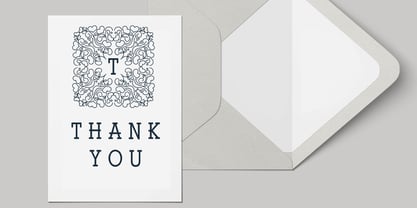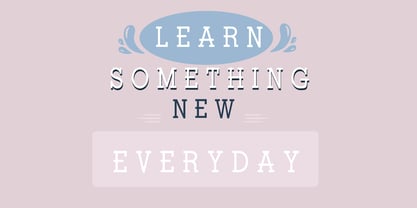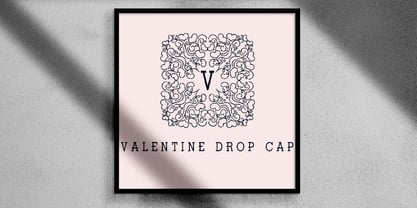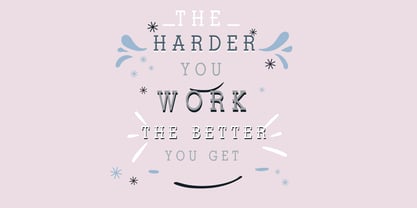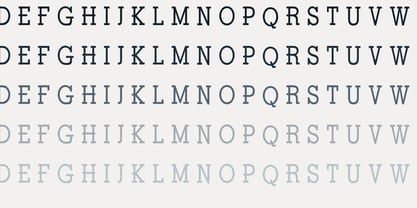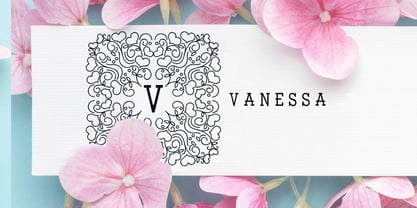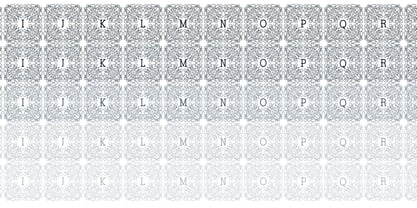
ZP Valentine Drop Cap
by Illustration Ink
The ZP Valentine Drop Cap Font Family was designed by Illustration Ink and published by Illustration Ink. ZP Valentine Drop Cap contains 6 styles and family package options. More about this family
This hand-crafted font is a wonderful monogram font with an intricate heart design framing each uppercase letter. Hand-crafted fonts can be either formal or informal, and they can be used for a variety of purposes. Some of the characteristics of handwritten fonts include: The letters are not perfectly uniform in size or shape. There may be slight variations in the spacing between letters and words. The font may have a "wiggly" or "squiggly" appearance. The font may be difficult to read at small sizes. Handwritten fonts can be a great way to add a casual touch to your designs. They can also be used to create a sense of nostalgia or whimsy. However, it is important to choose a handwritten font that is appropriate for the project you are working on. A formal handwritten font may not be appropriate for a casual invitation, while an informal handwritten font may not be appropriate for a corporate document.
ZP Valentine Drop Cap